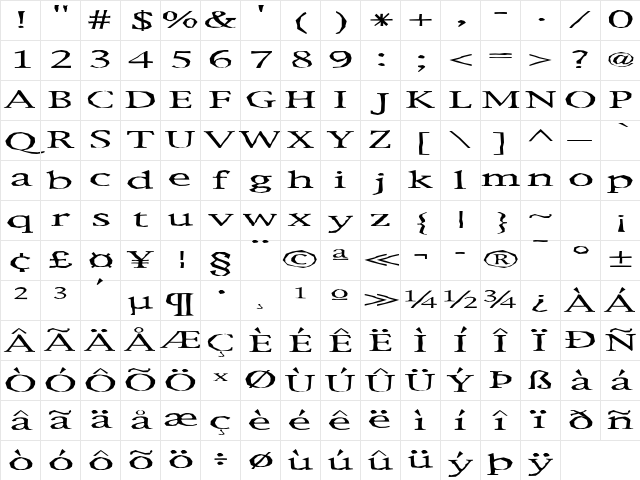
Metaphor Regular Free Font
Metaphor Regular
Design Context for Metaphor
Metaphor is a composed and adaptable typeface that performs quietly and consistently across a wide range of design contexts.